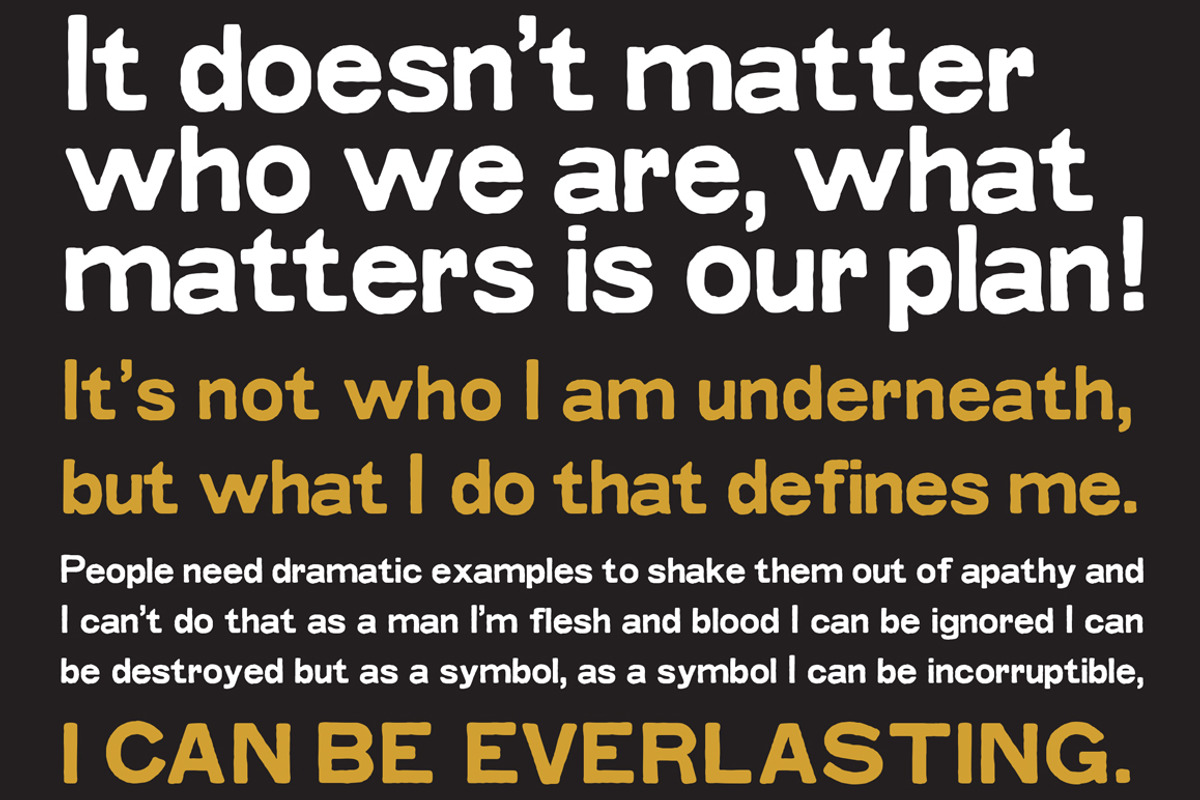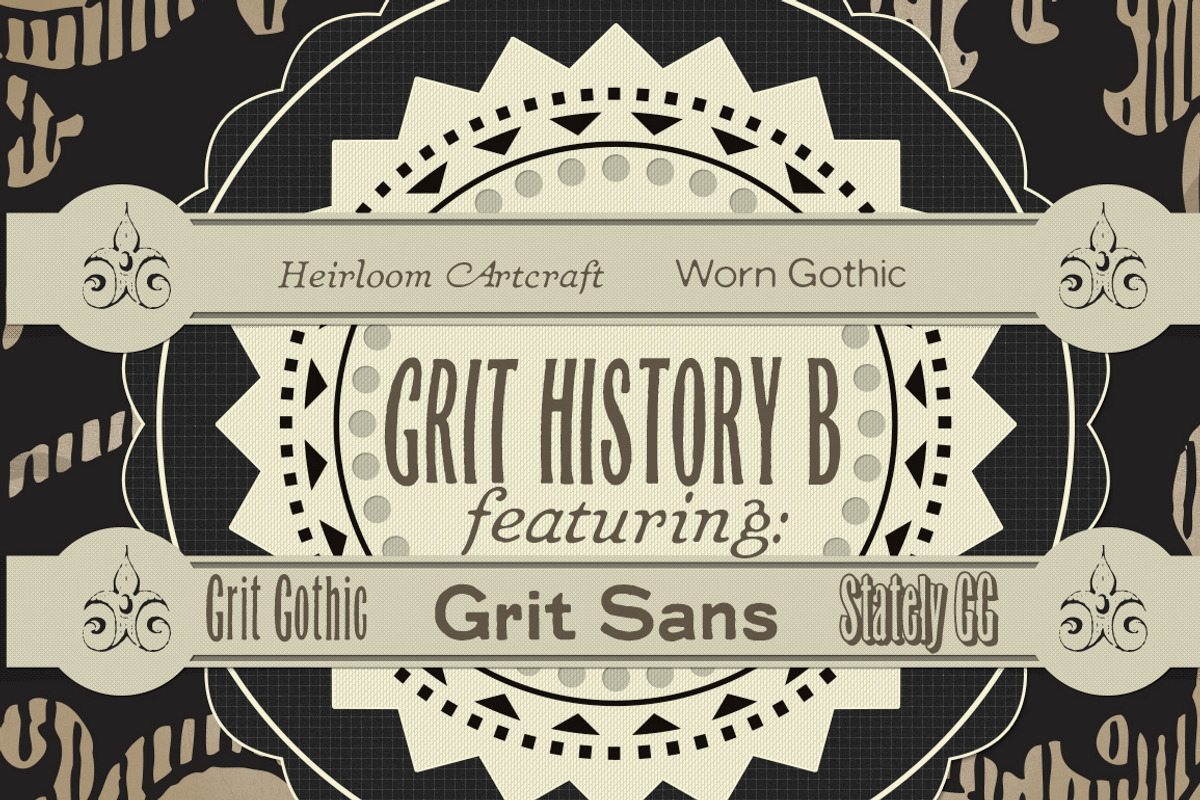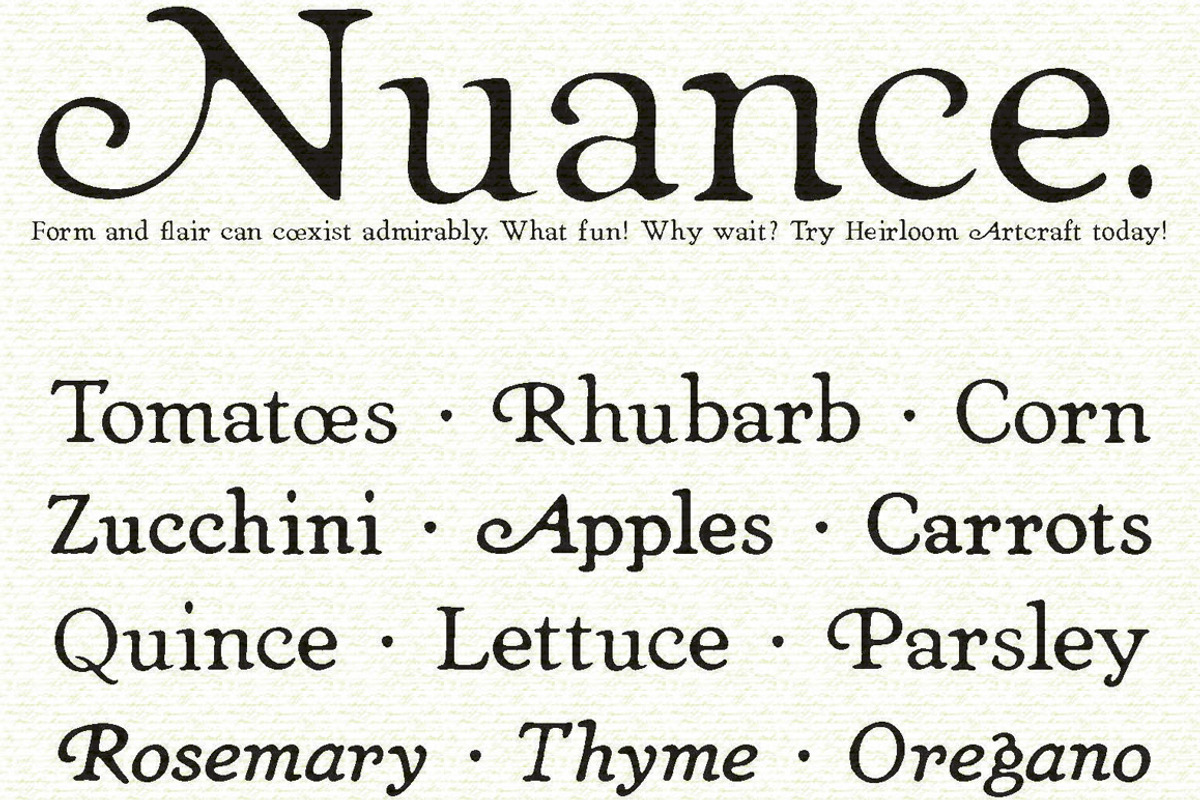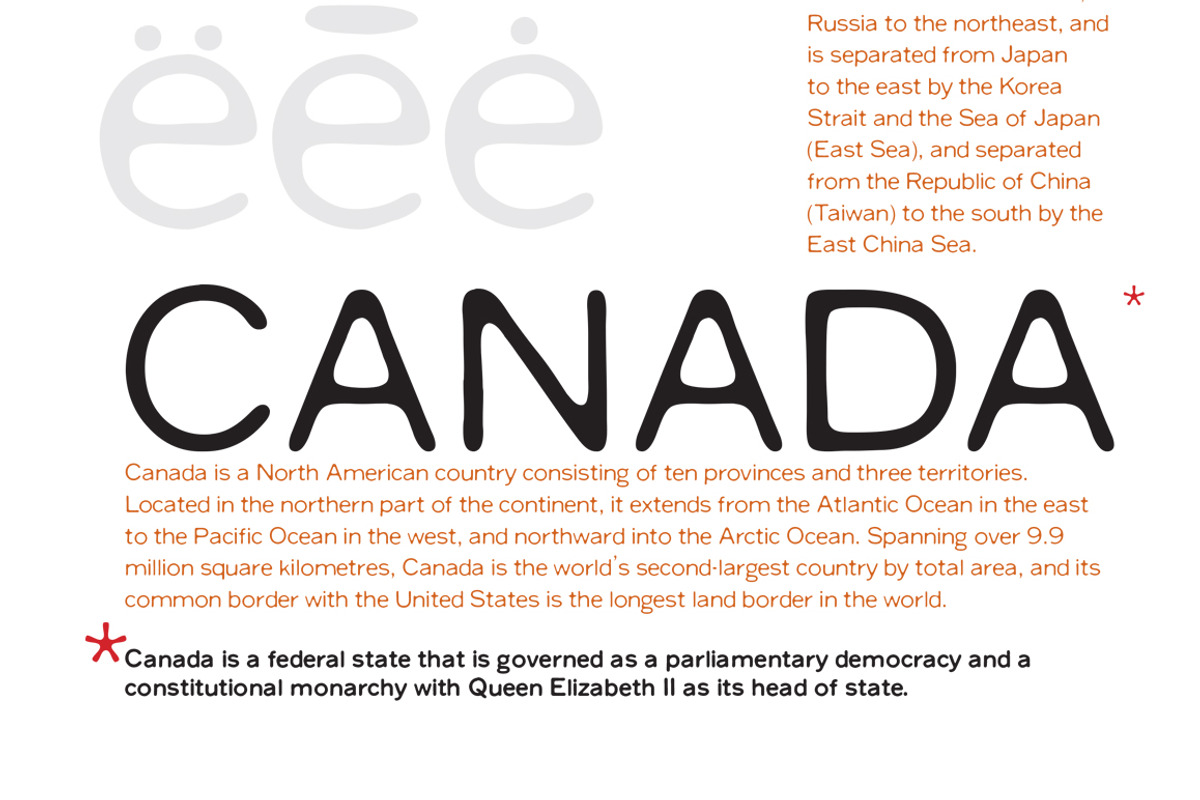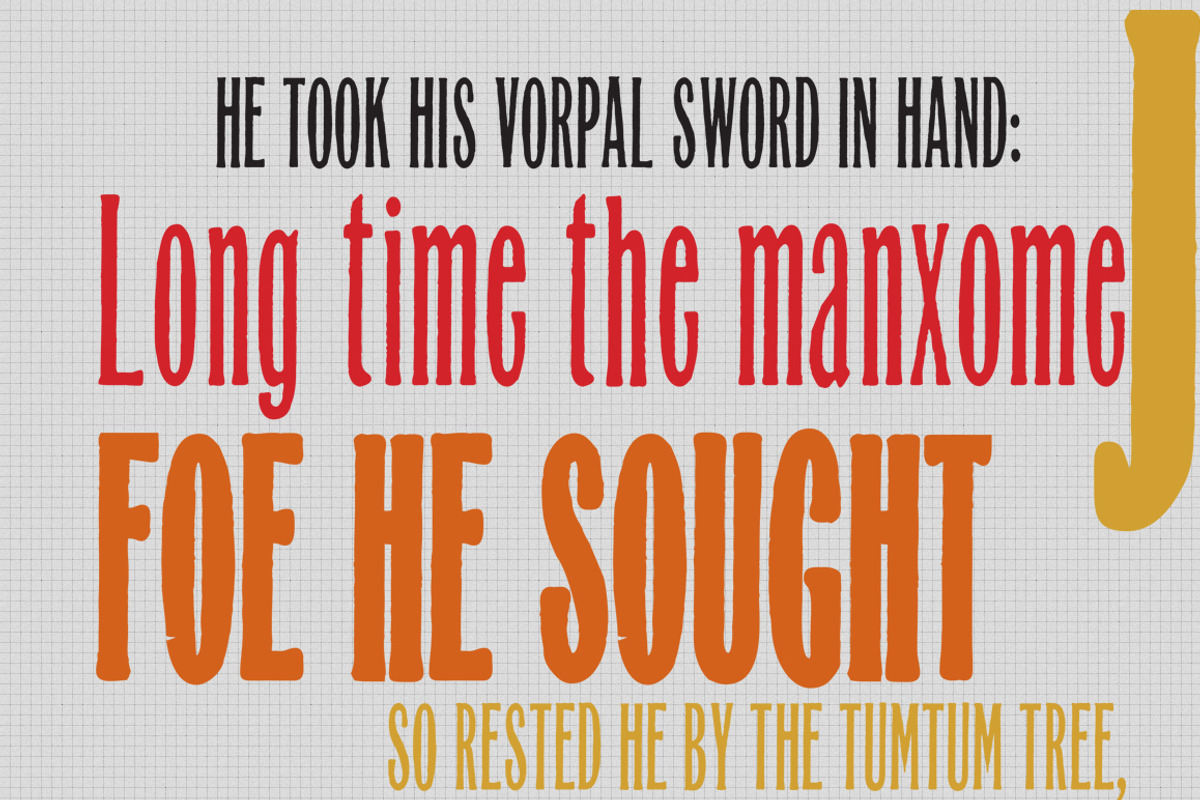
Grit History™ Series B Collection
Grit History™ Series B Collection by Baseline Fonts is a font selected for branding, posters, packaging, typography.
- Grit History™ Series B includes: Grit Gothic (Regular, Bold) – a beautiful vertical typeface ideal for headlines and condensed emphasis.
Why Grit History™ Series B Collection is worth a look
Grit History™ Series B Collection by Baseline Fonts fits naturally into Branding, posters, packaging, typography.